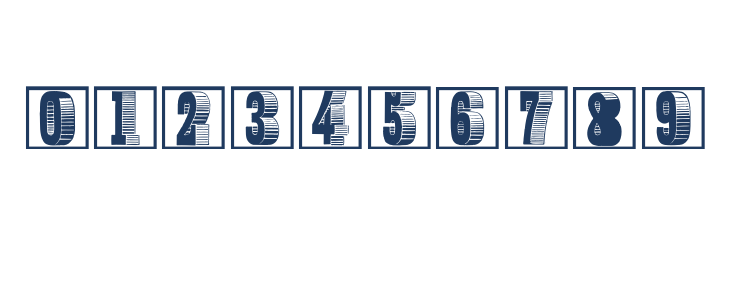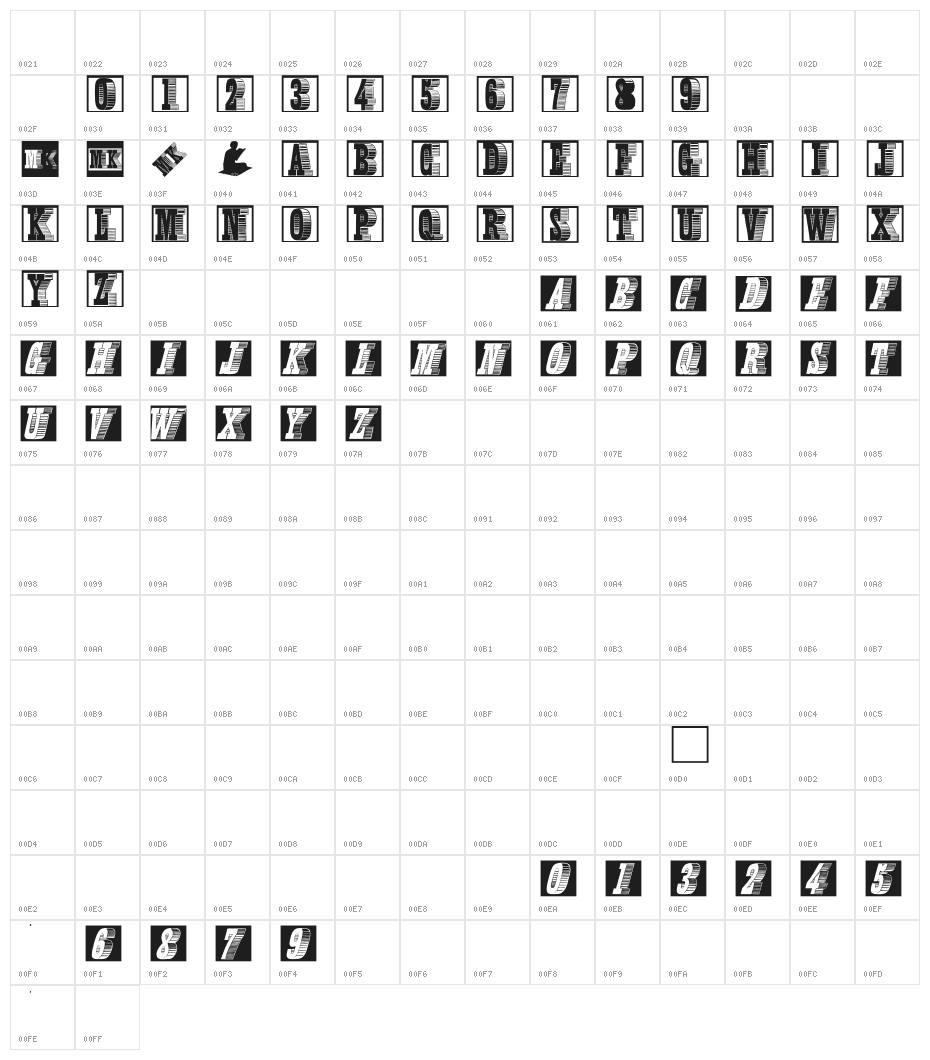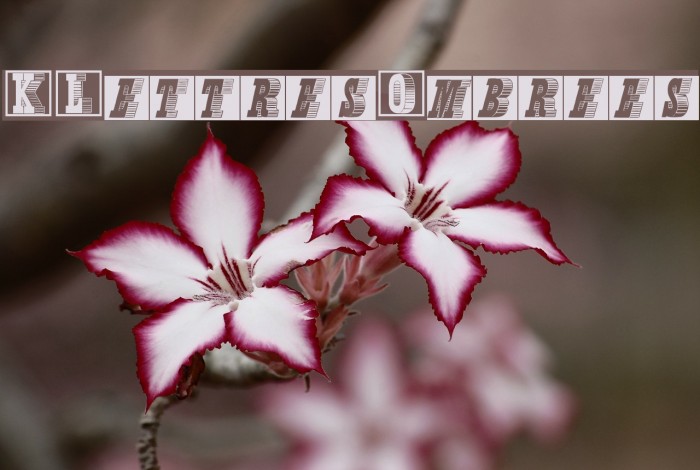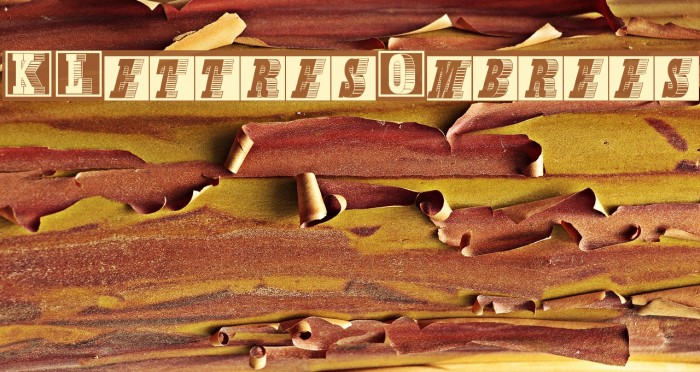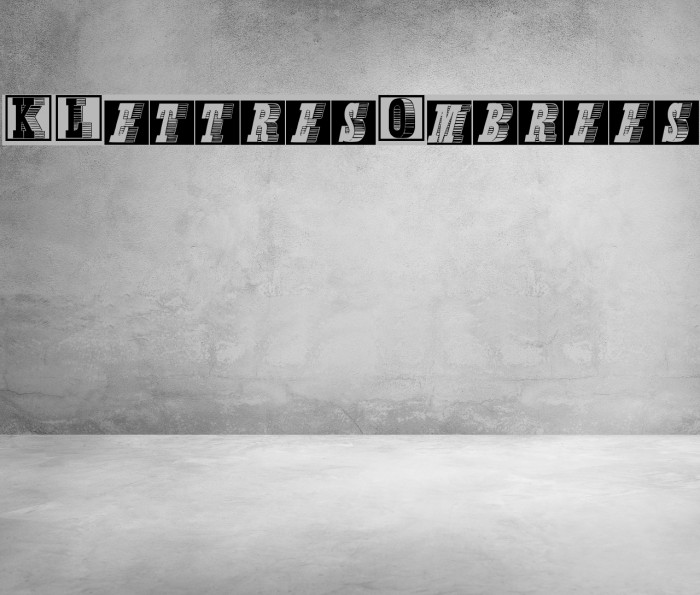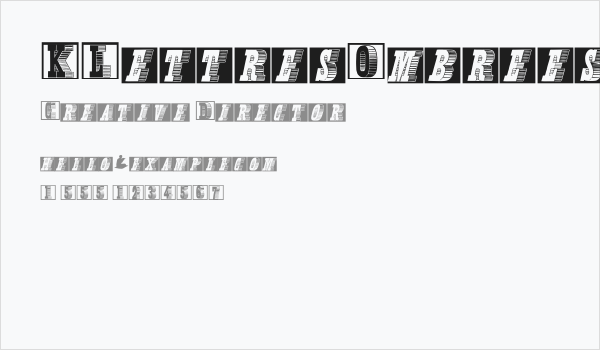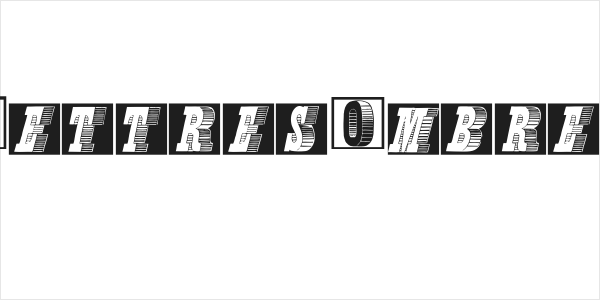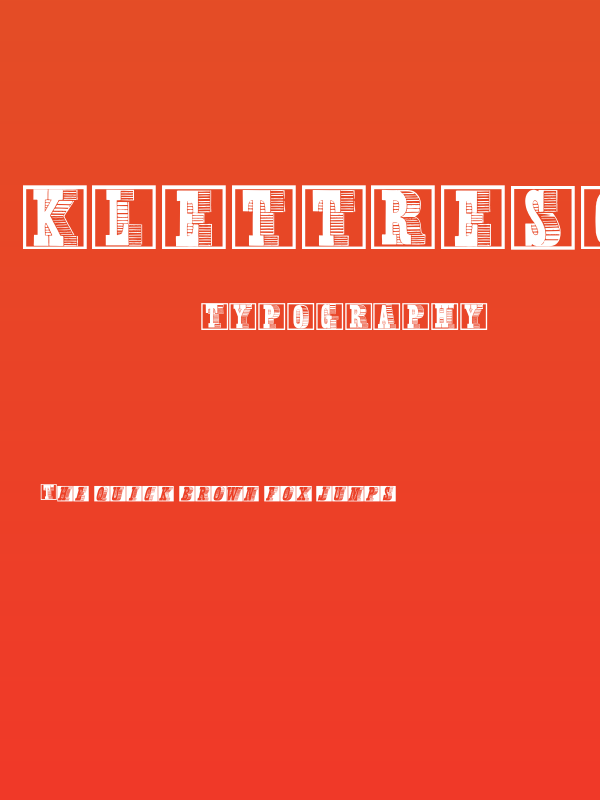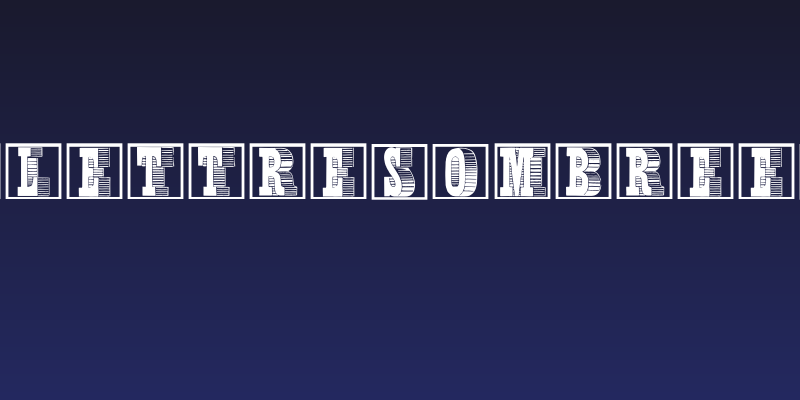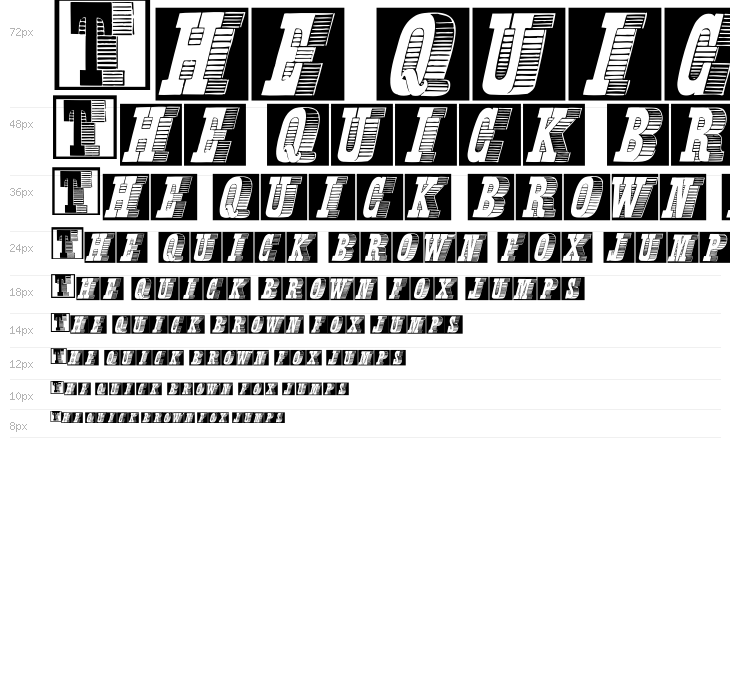
KLettresOmbrees Font
KLettresOmbrees Description
This font features a bold, shadowed style that gives each character a three-dimensional appearance. The uppercase letters are enclosed in a rectangular outline, enhancing the boldness and making them stand out. The font has a decorative flair with its striped shadow effect, adding depth and a sense of movement. The numbers and special characters follow the same design, ensuring consistency across all elements. This font is ideal for projects that require a strong visual impact and a touch of vintage charm.
Overall StyleVintage
Proposed ProjectsIdeal for posters, signage, logos, and any design needing a bold, vintage look.